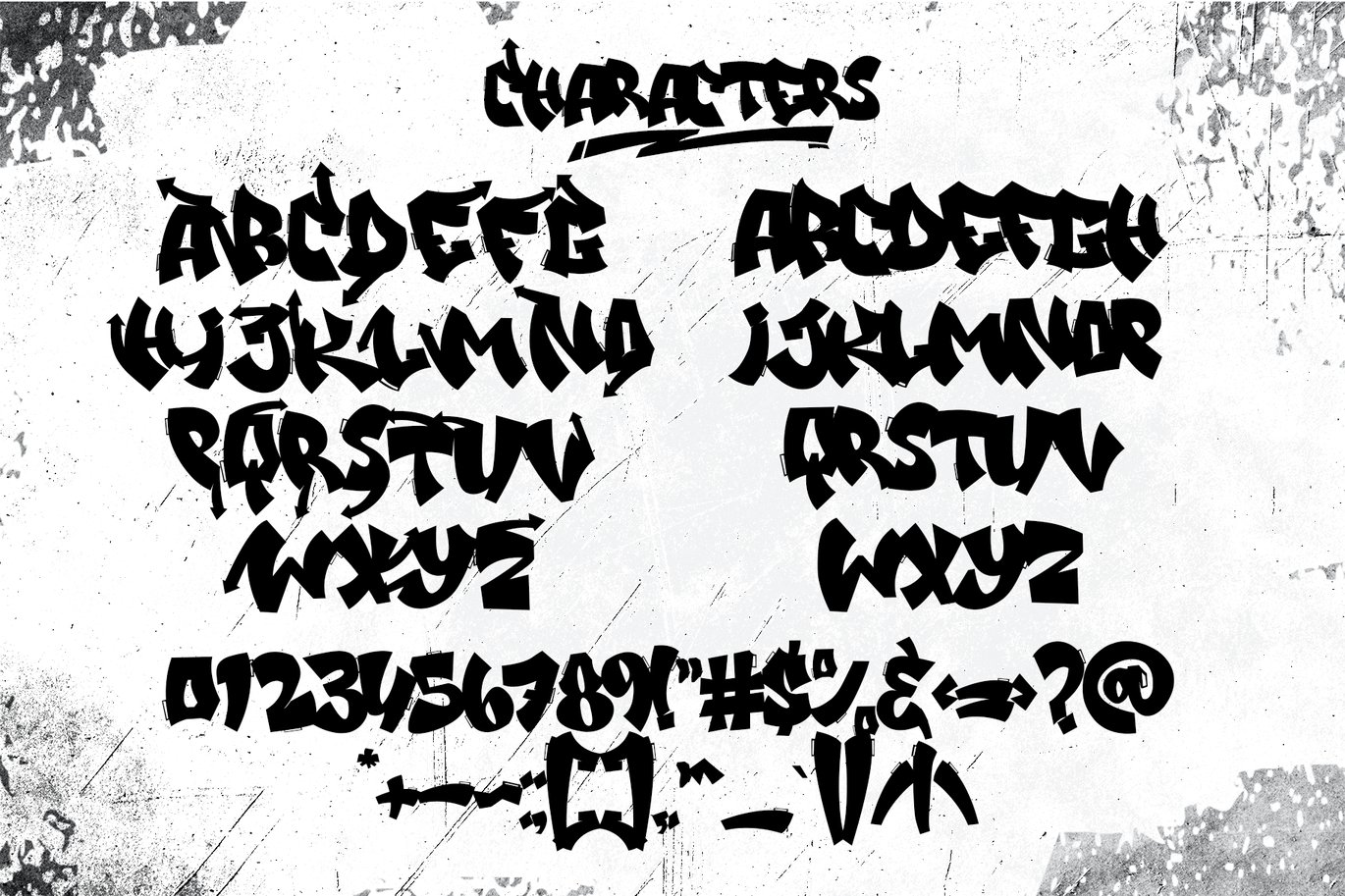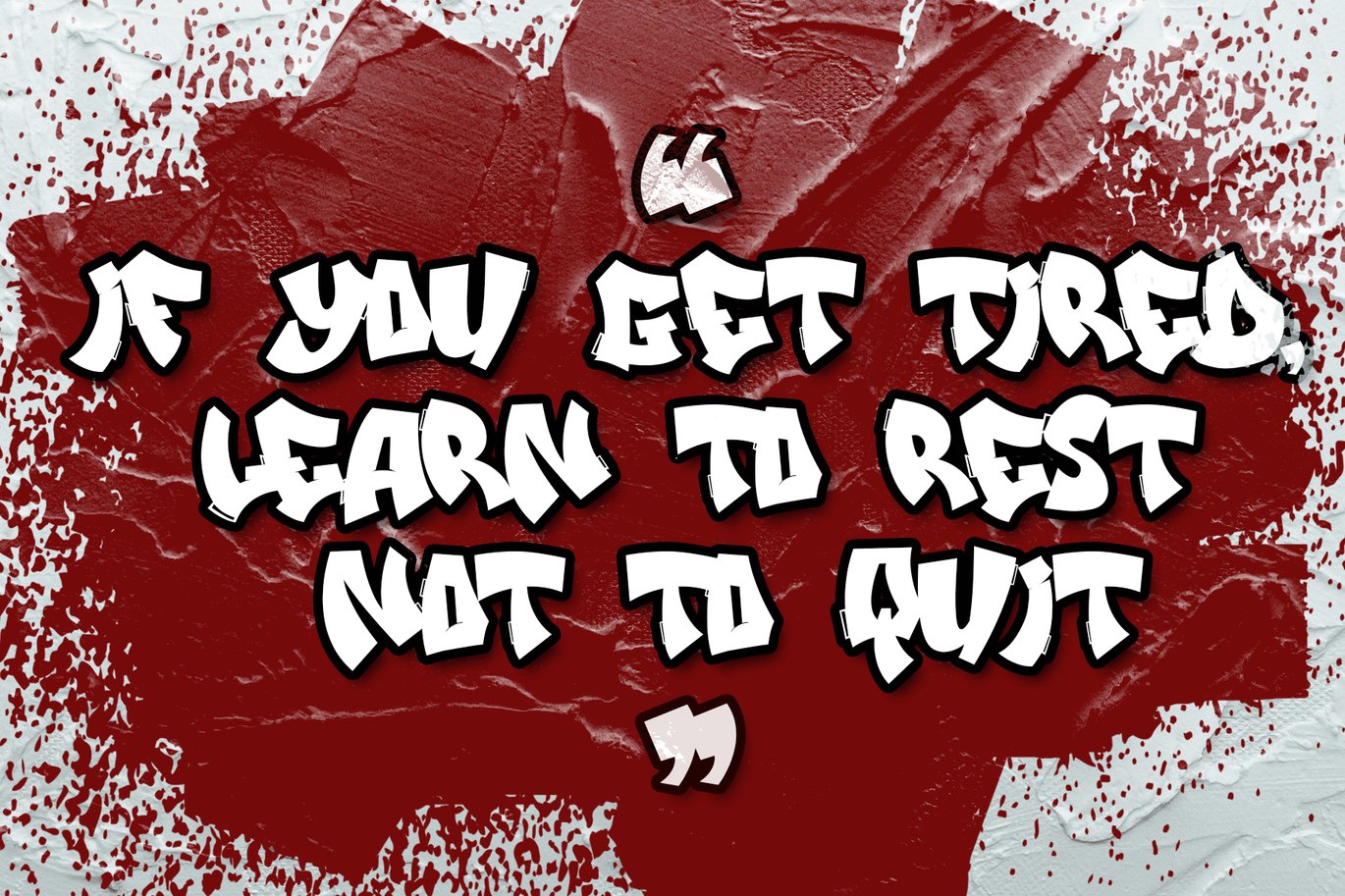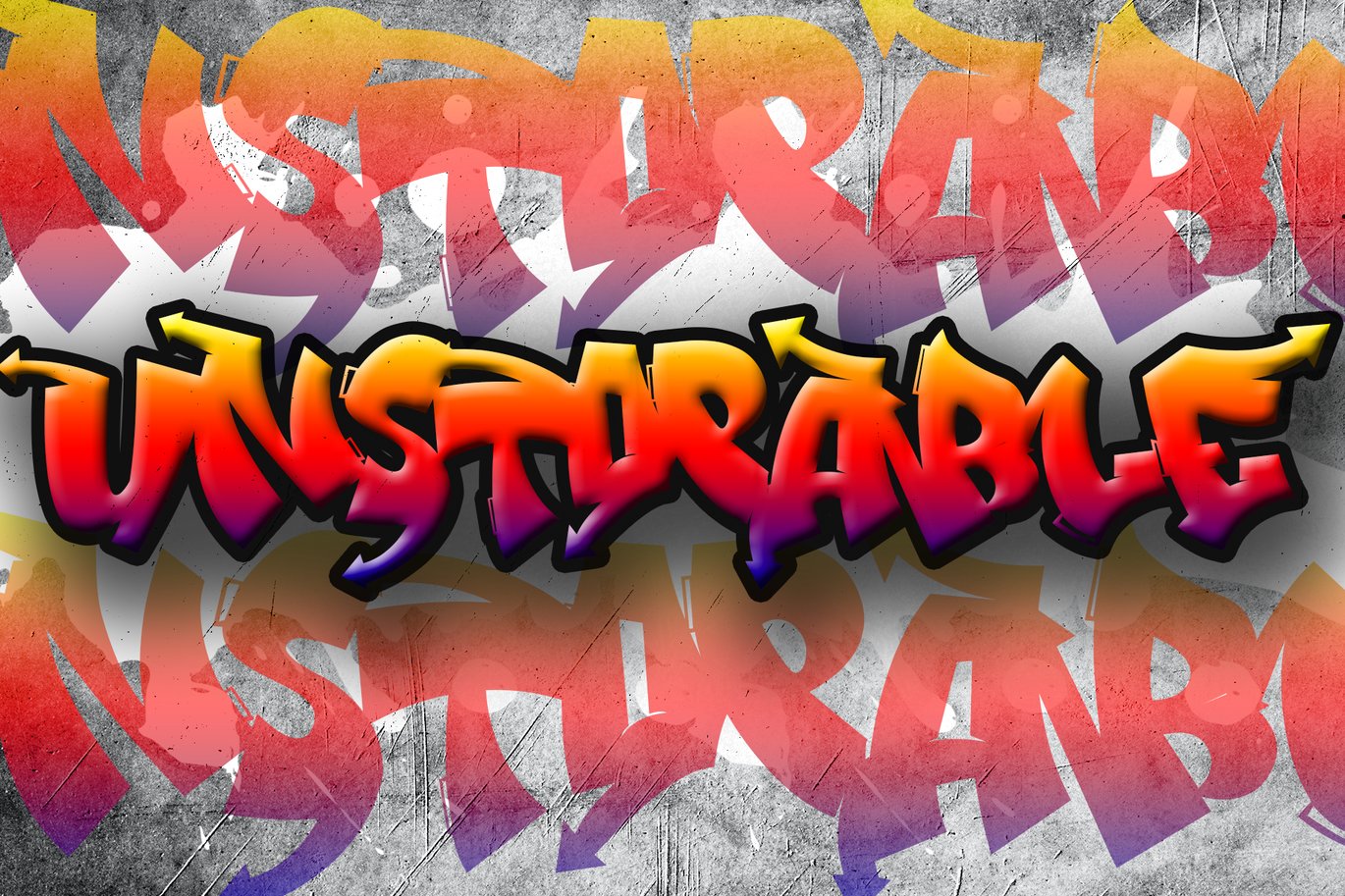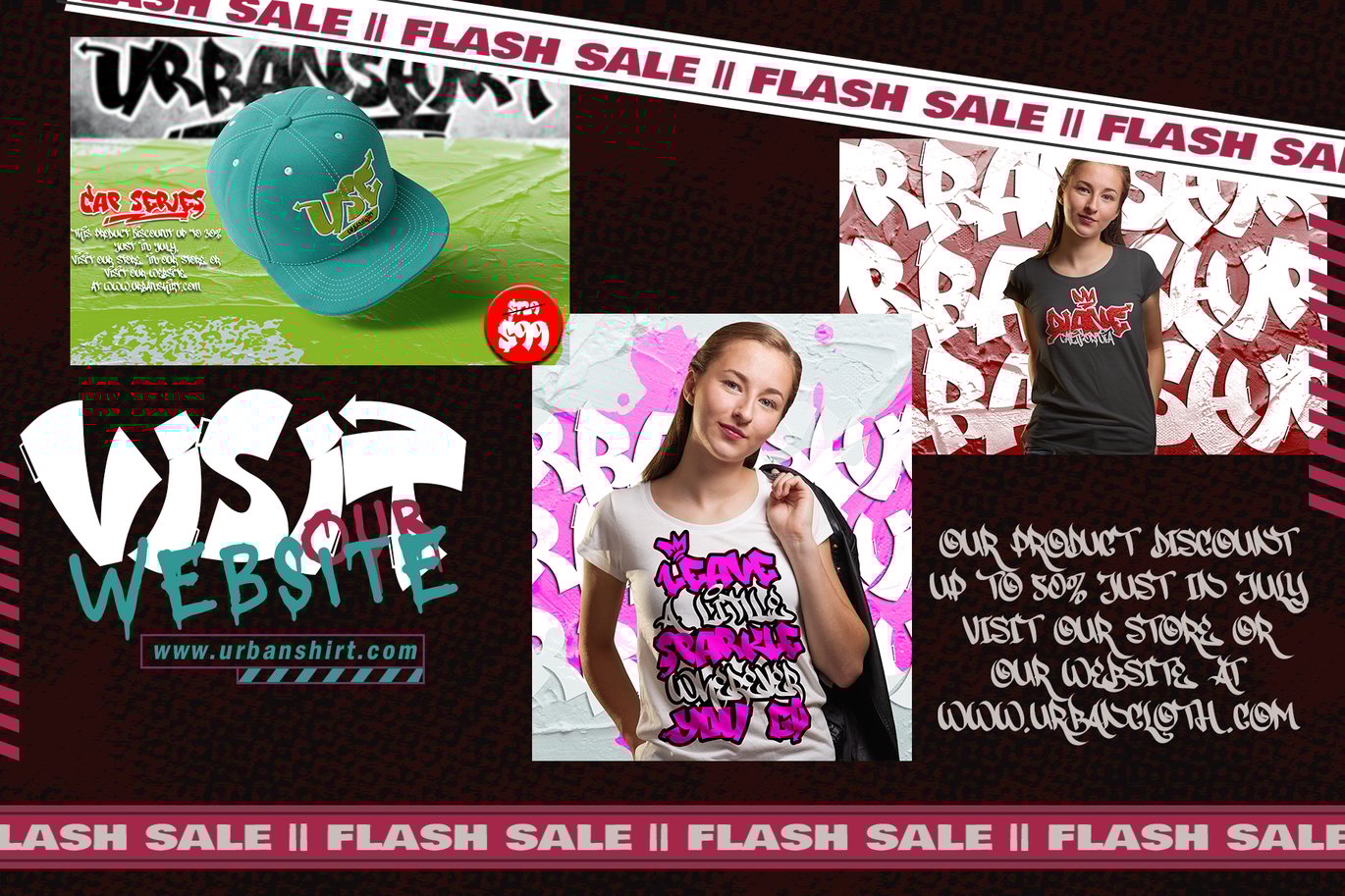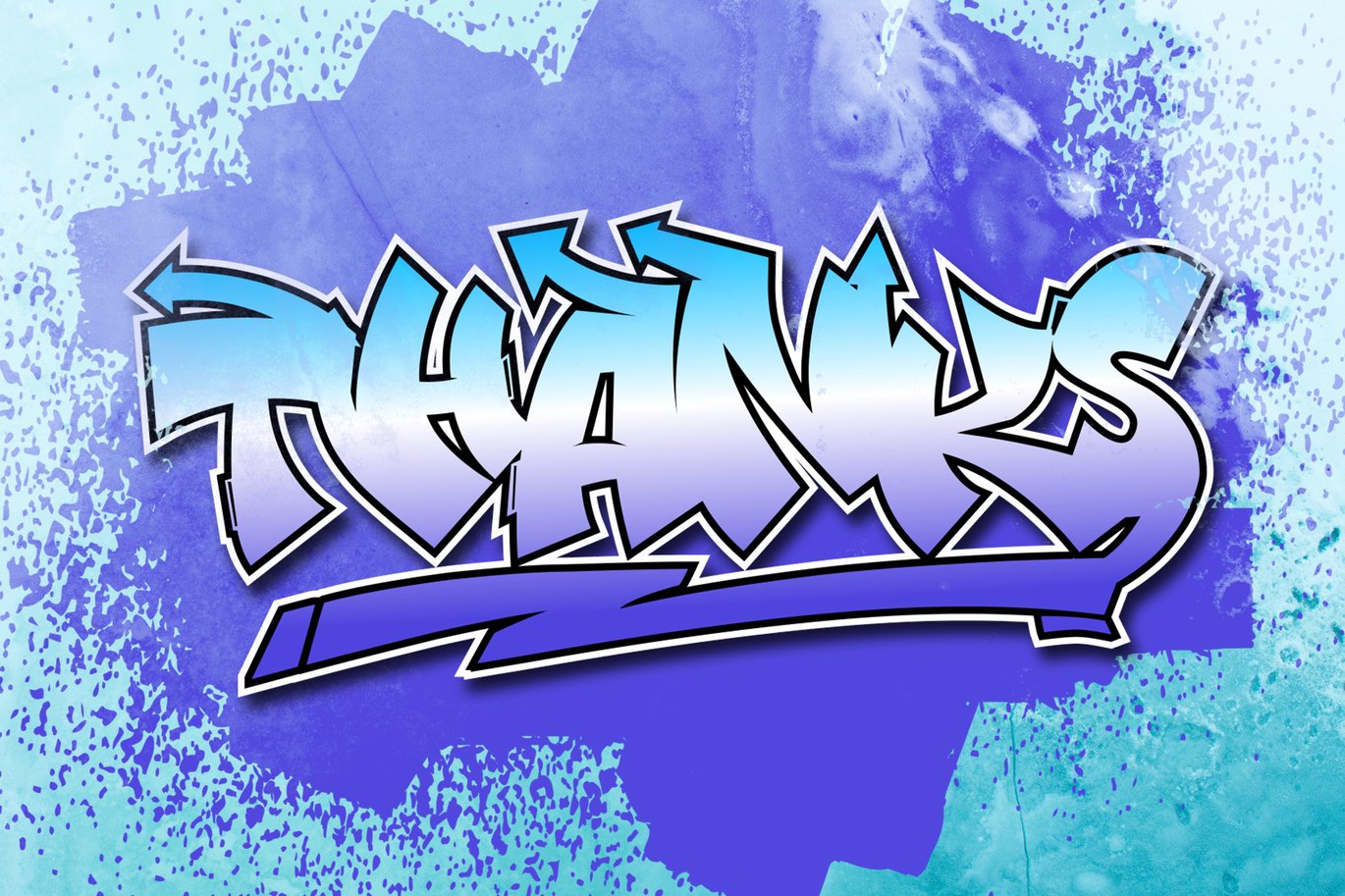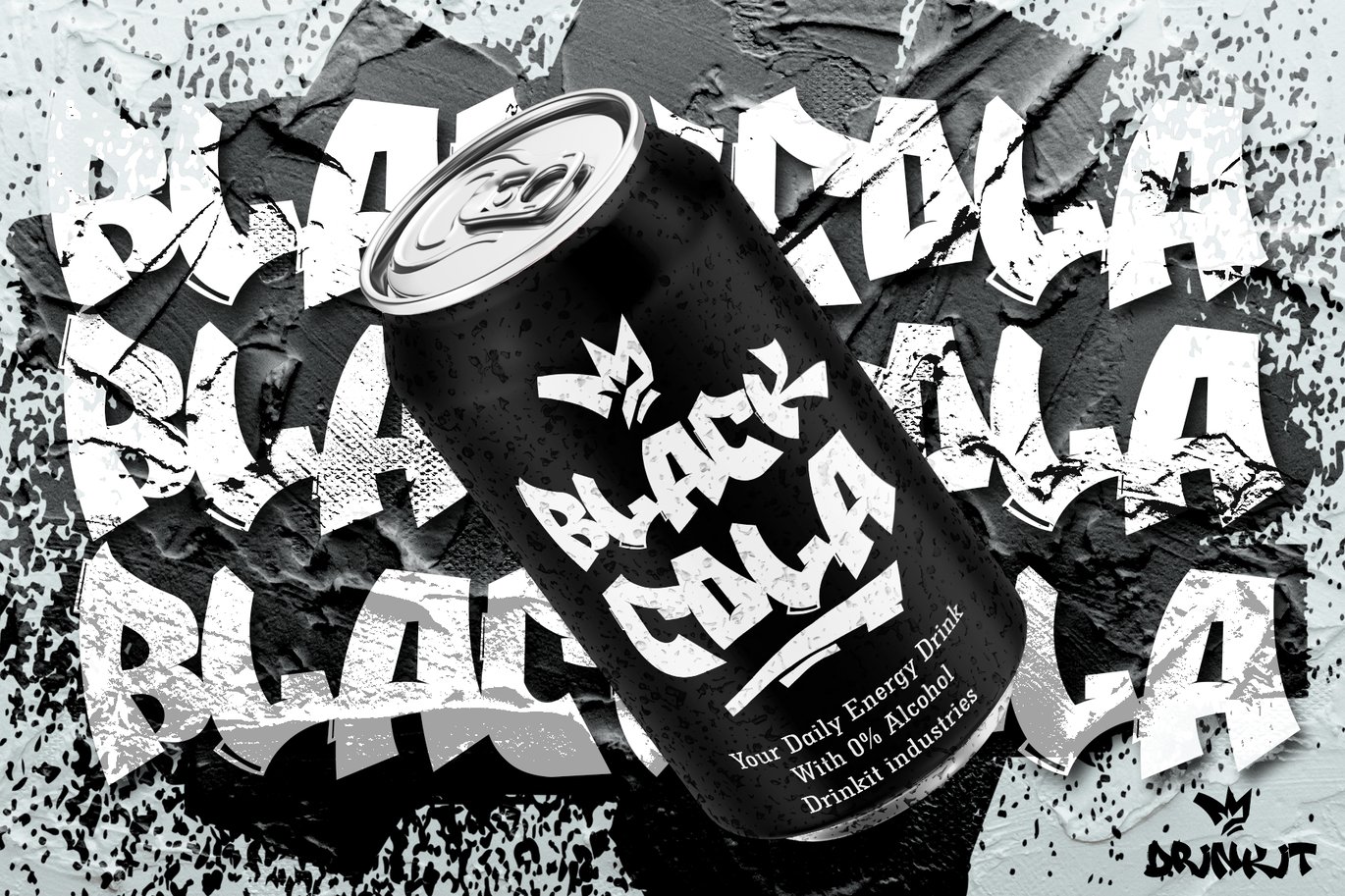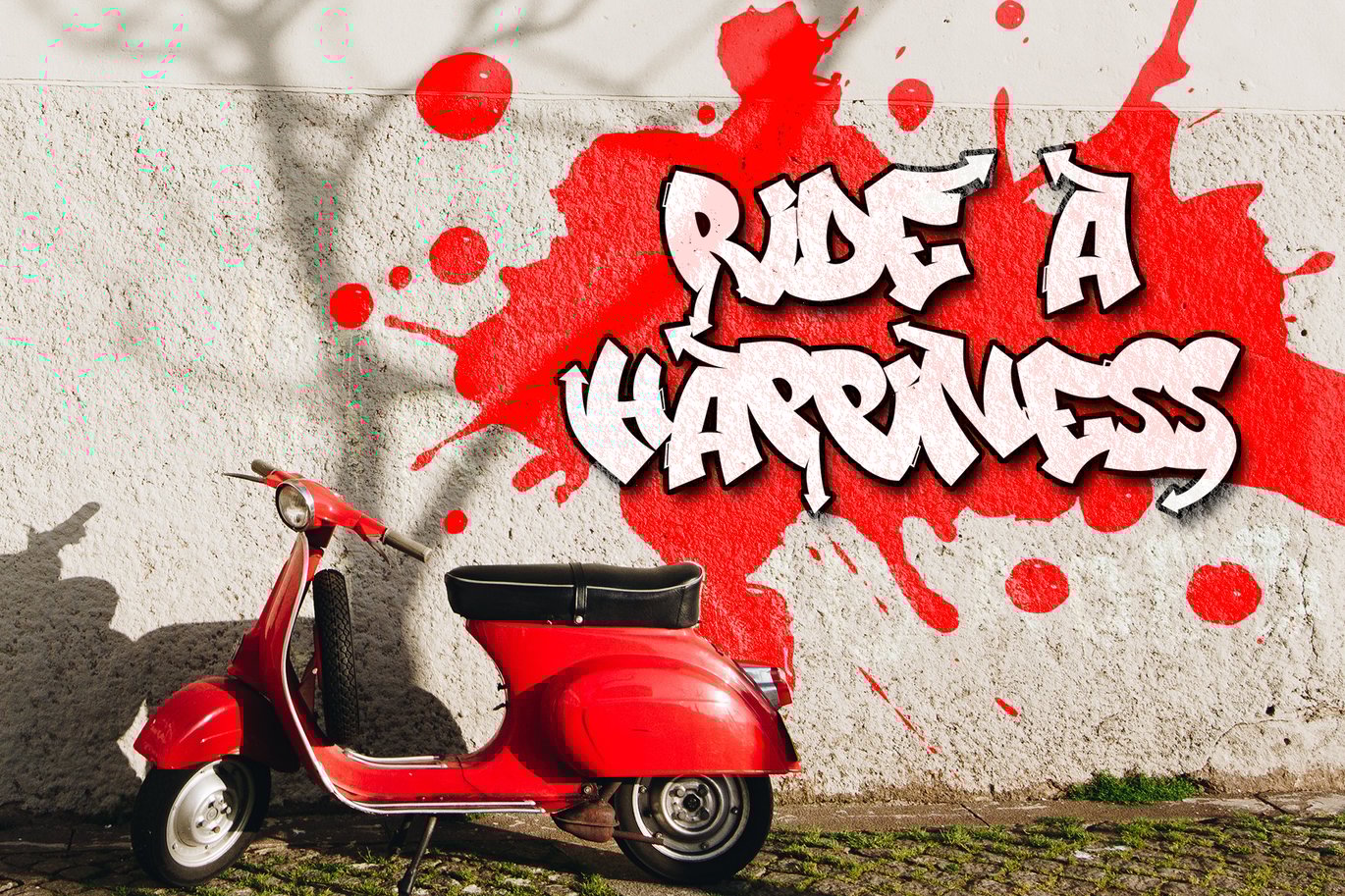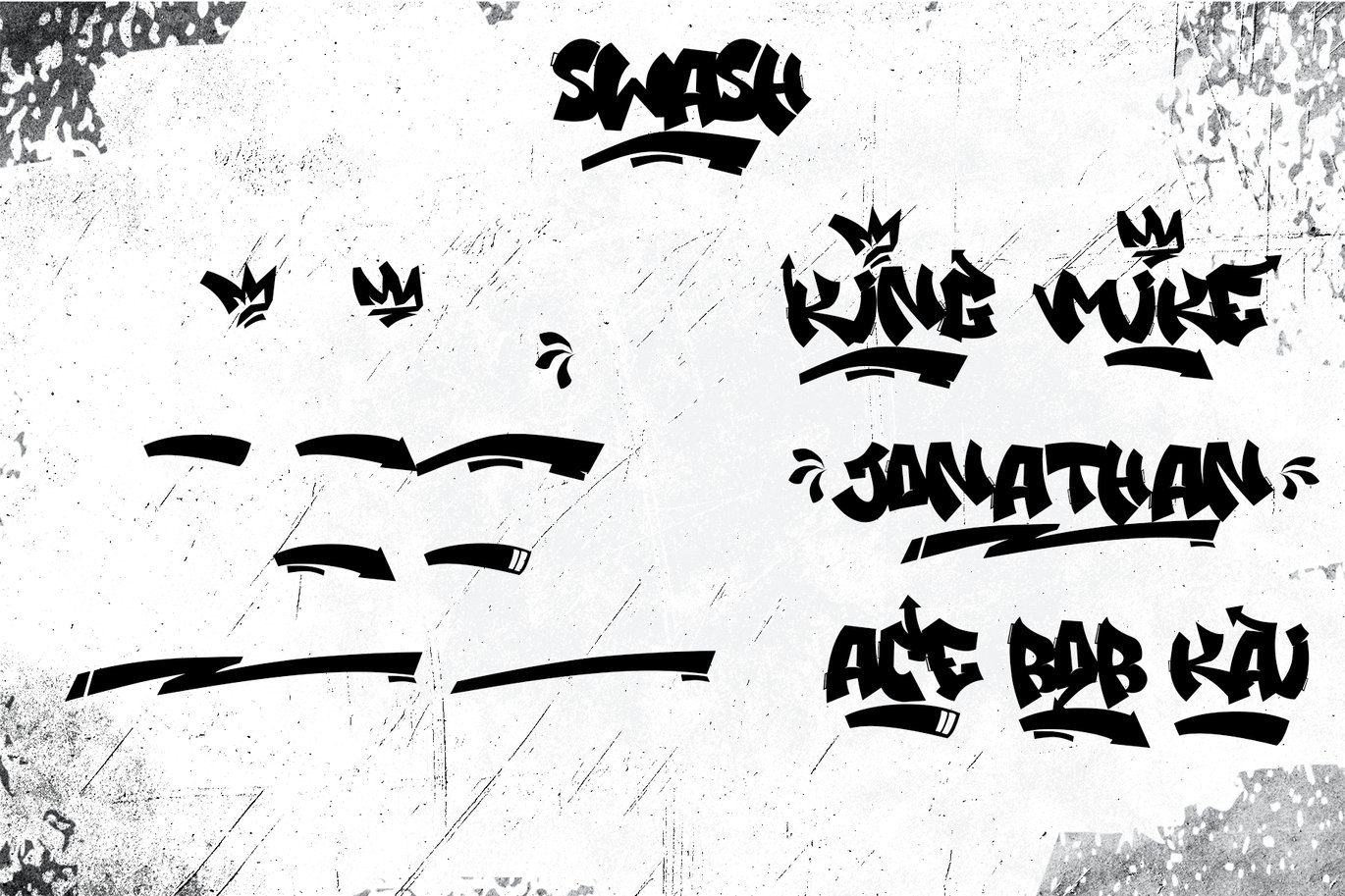
Donkey Sign – Decorative Graffiti Font
Donkey Sign is a spectacular decorative font with a Graffiti style and with a sign decorative inside for your design to look awesome. It will elevate a wide range of design projects to the highest level, be it branding, headings, wedding designs, invitations, logotype, wall art illustration, labels, and much more!
- Number and Punctuation
- Swash